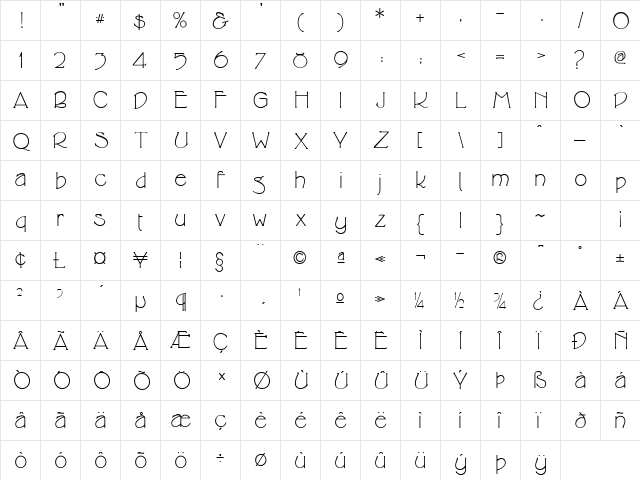
Cupola Regular
Design Context for Cupola Typeface
Cupola is a composed and adaptable typeface that performs quietly and consistently across a wide range of design contexts.